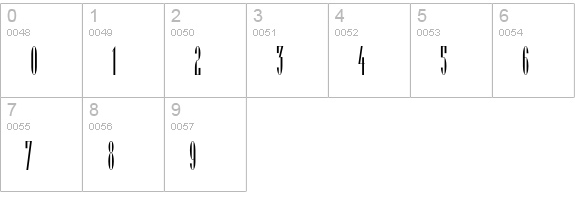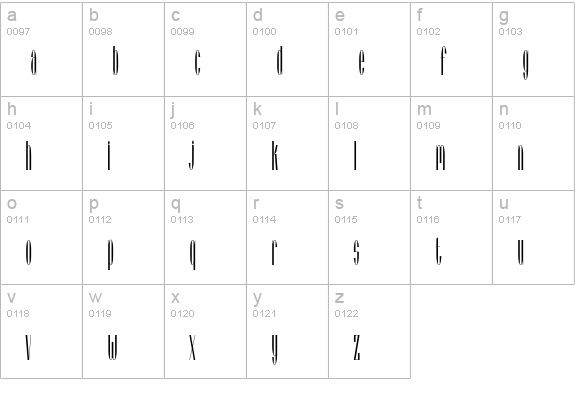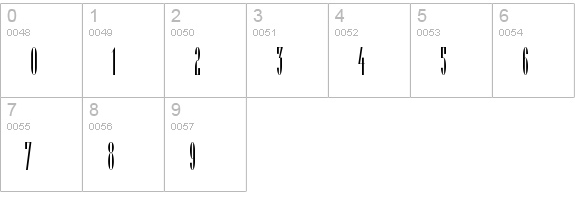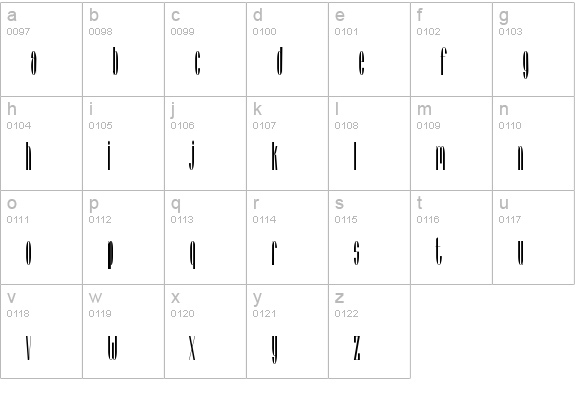
Arcadia A Font Details
Arcadia A font is a versatile and stylish typeface that exudes elegance and sophistication. With its clean lines and modern aesthetic, this font is perfect for a wide range of design projects, from branding to editorial design. Its sleek and contemporary look makes it a popular choice among designers looking for a font that can make a statement. What sets Arcadia A font apart is not only its aesthetic appeal but also its versatility. Whether you are designing a logo, creating a website, or working on a print project, this font will add a touch of sophistication and flair to your work. The best part about Arcadia A font is that it is completely free to download at FontsMarket.com. This means that you can start using this beautiful font in your projects right away, without having to worry about any additional costs. So why wait? Download Arcadia A font today and elevate your designs to the next level.